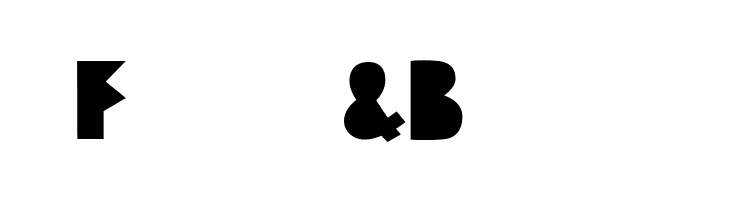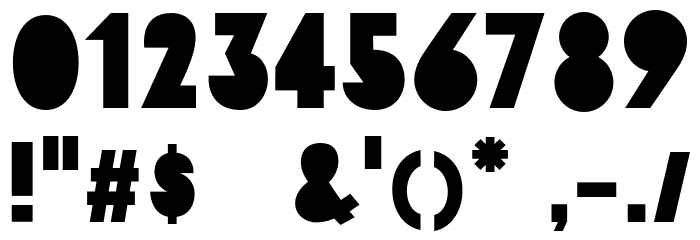
Funky&Bould Font
Funky&Bould Description
This bold and striking font features geometric shapes and a playful, retro aesthetic. The uppercase letters are characterized by their thick, blocky forms, with some letters incorporating unique cutouts and angles that add to its distinctive style. The numbers follow a similar design, maintaining the boldness and geometric nature. Special characters are creatively designed, fitting seamlessly with the overall theme. This font exudes a sense of fun and creativity, making it ideal for eye-catching designs.
A bold, geometric font with a playful, retro style from Uncategorized fonts.
- Proposed Projects: Ideal for posters, logos, and branding projects that require a bold and creative touch.
- Overall Style: Retro, Playful